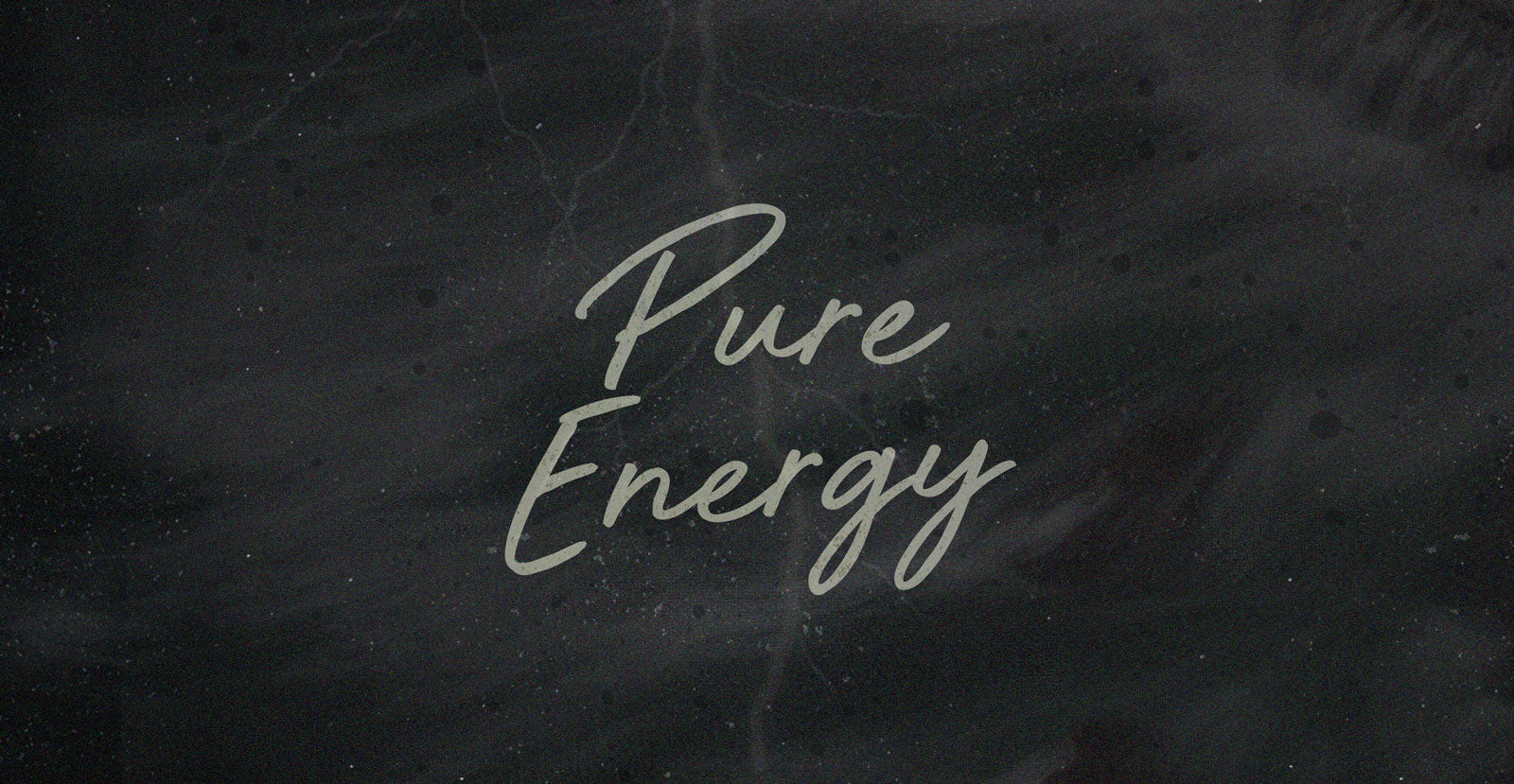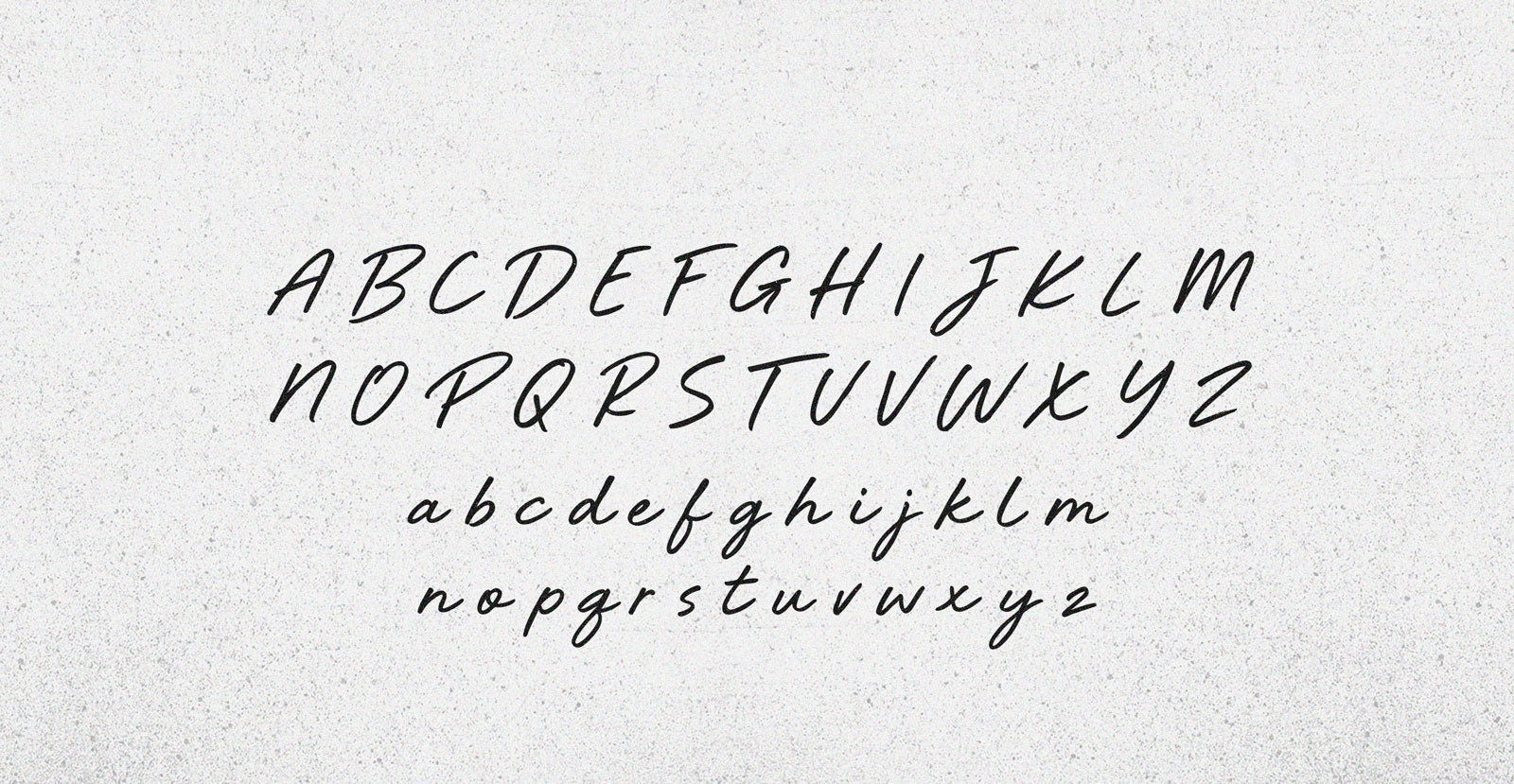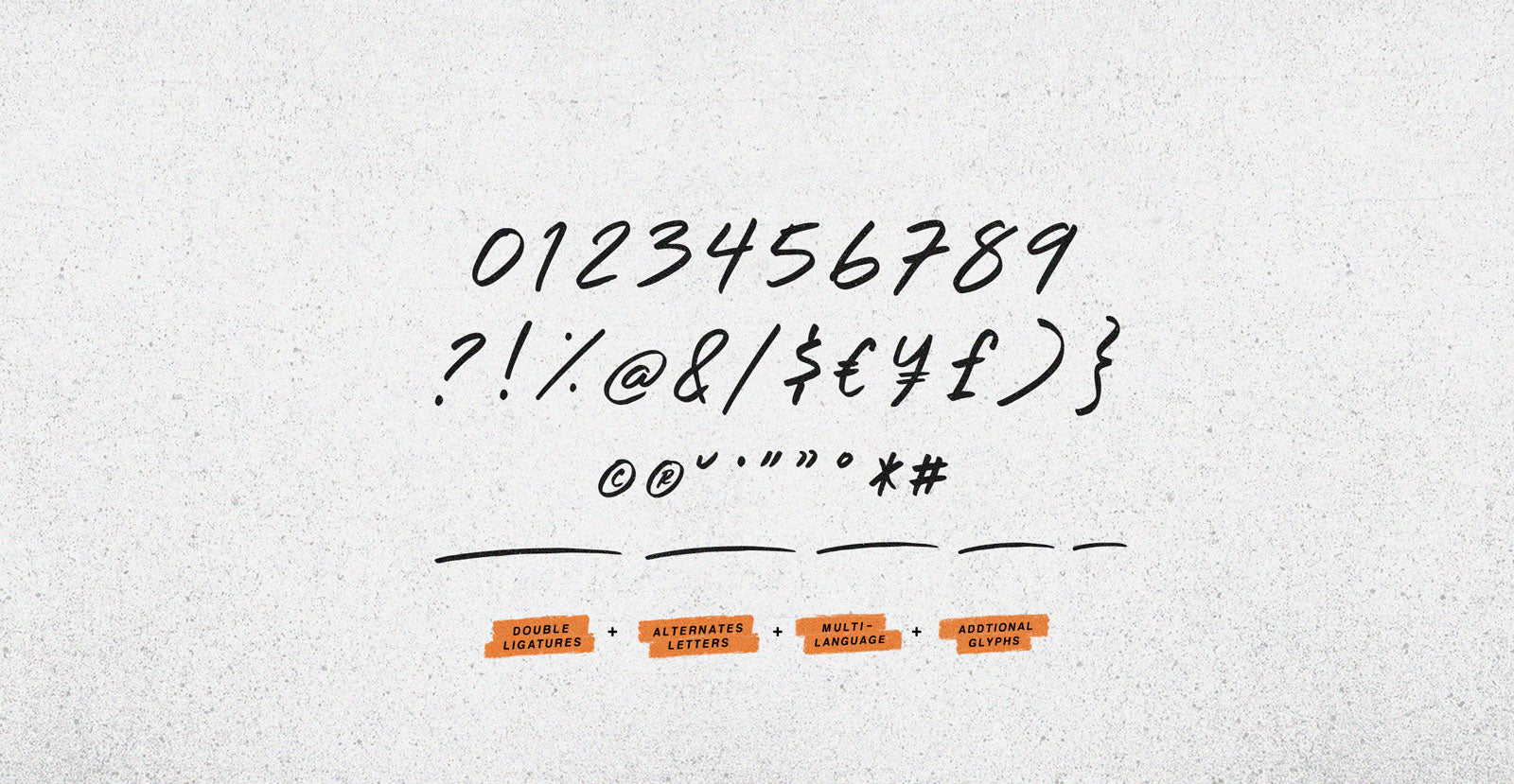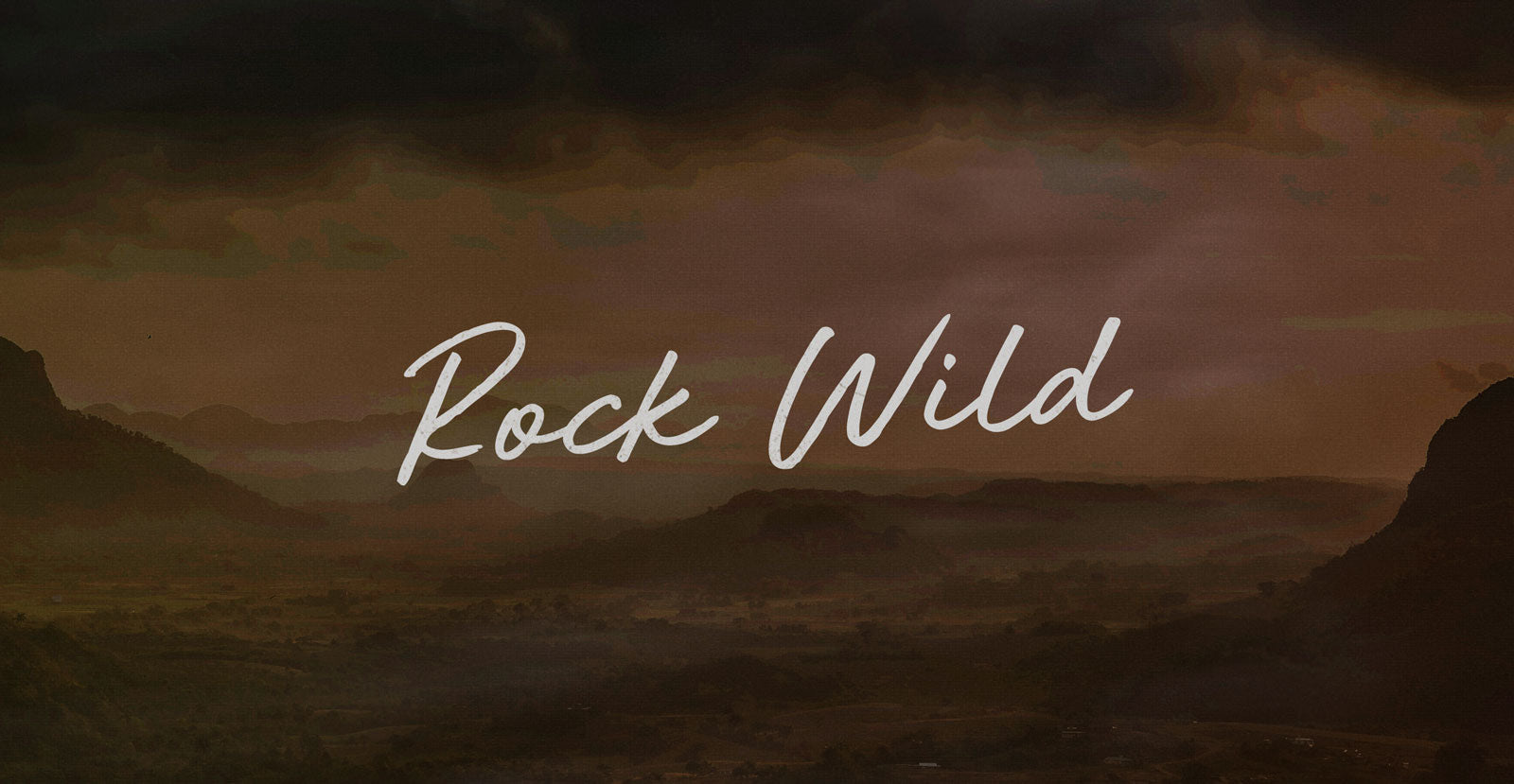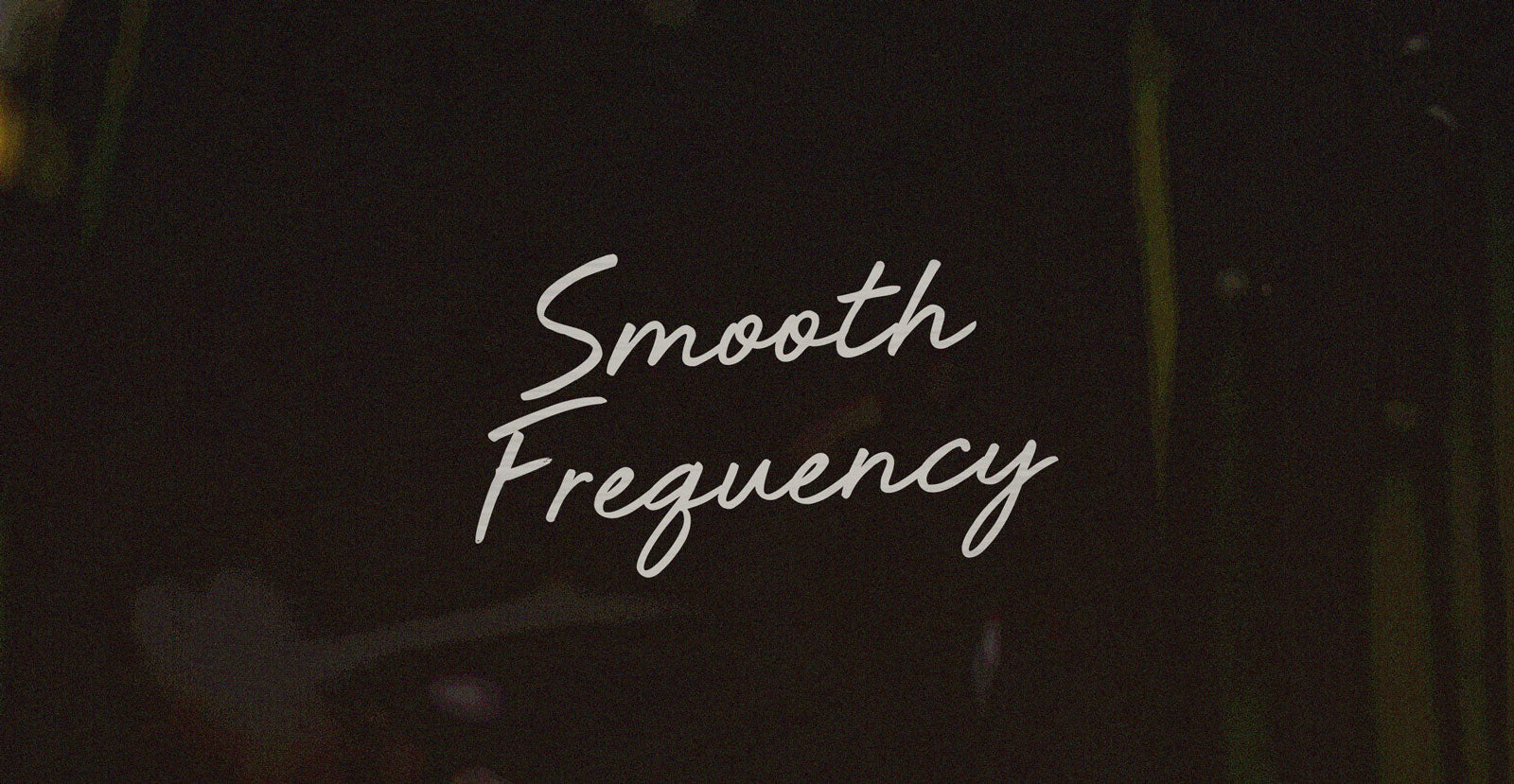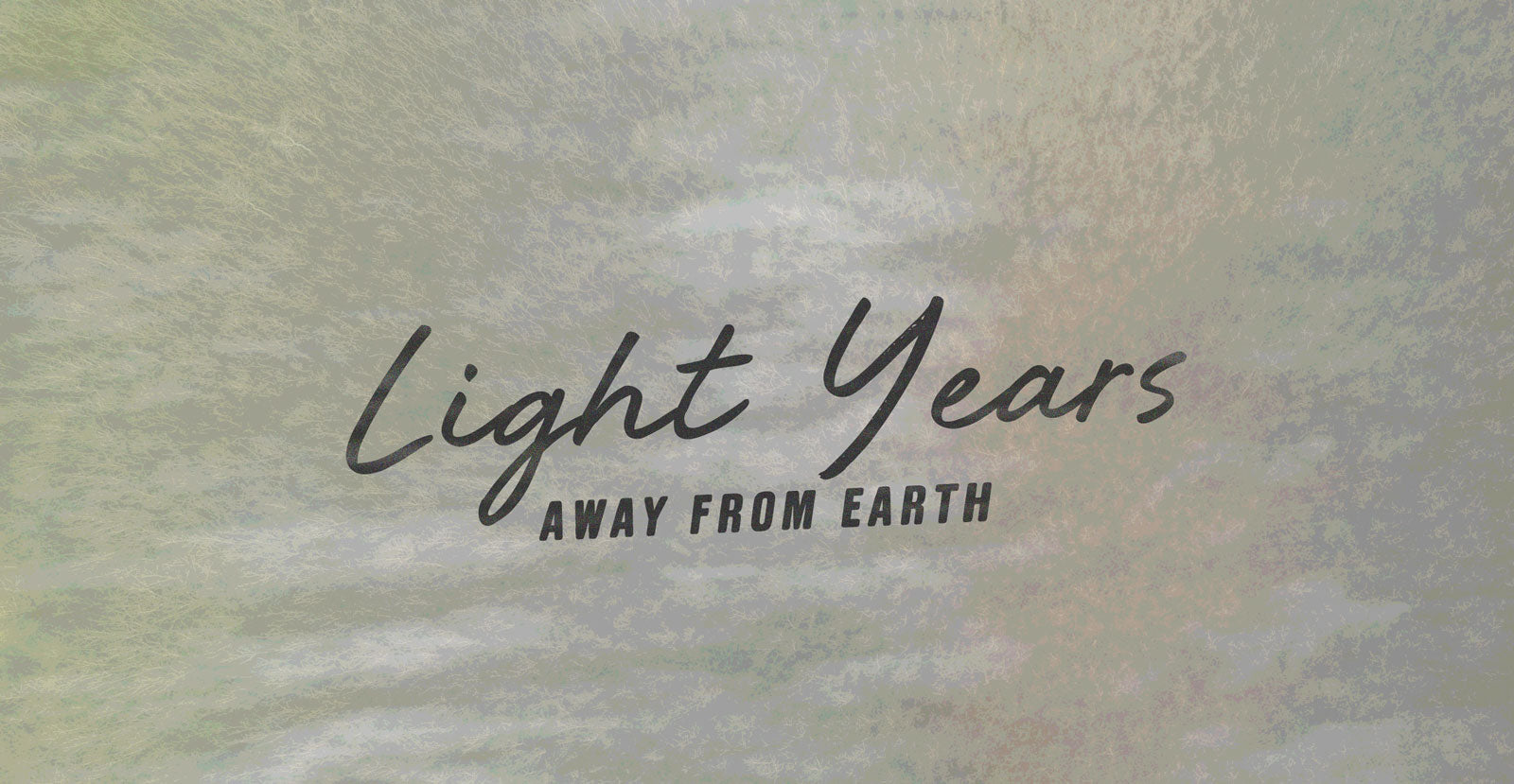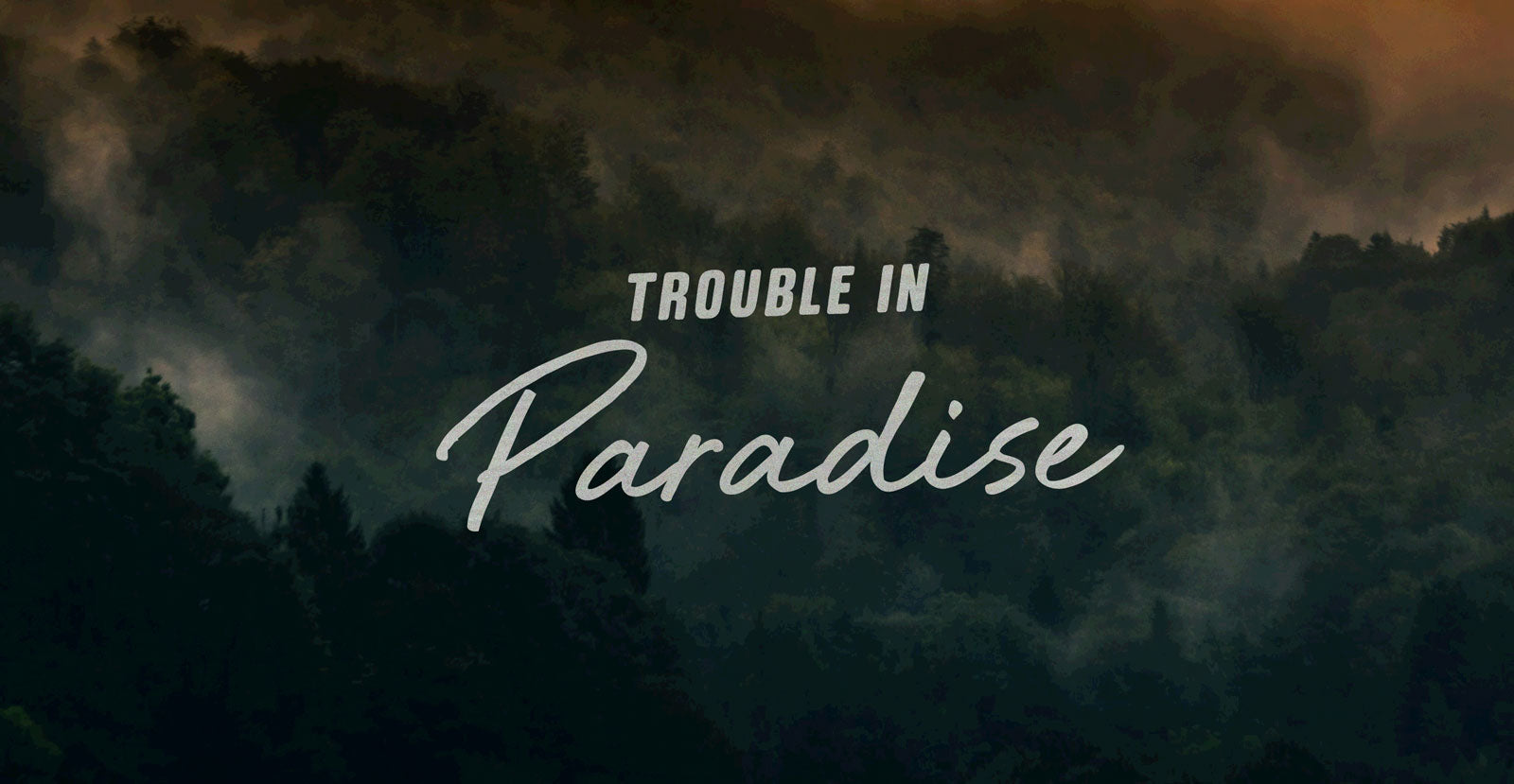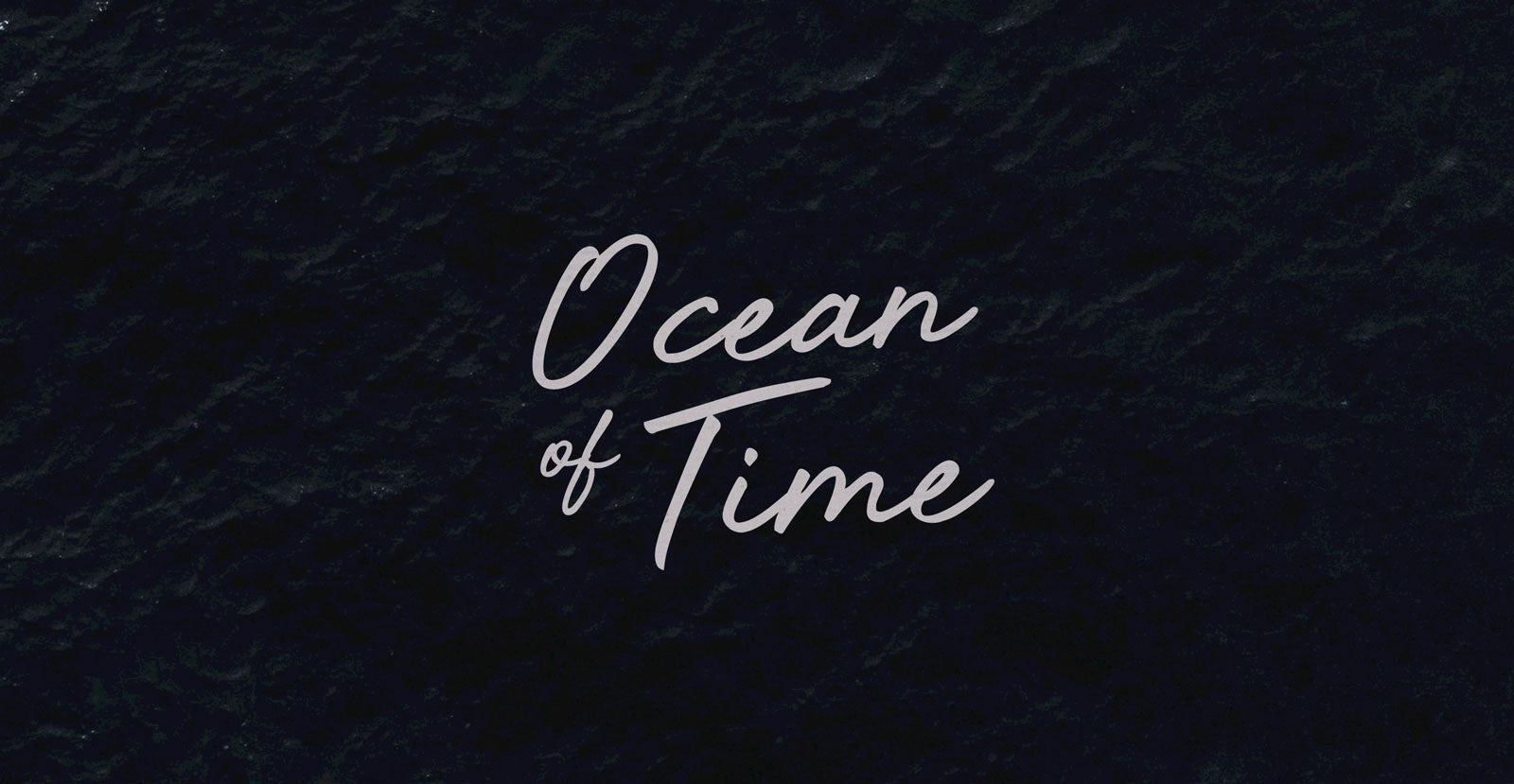
Pure Energy
It was an anti-entropic act of desperation. A love letter written in binary star secretions, one hand washing the other of everything but motion: fluid, pressure, wrung out Pure Energy guerrilla grips grasping fingers, bending wrists, appendages in absence.